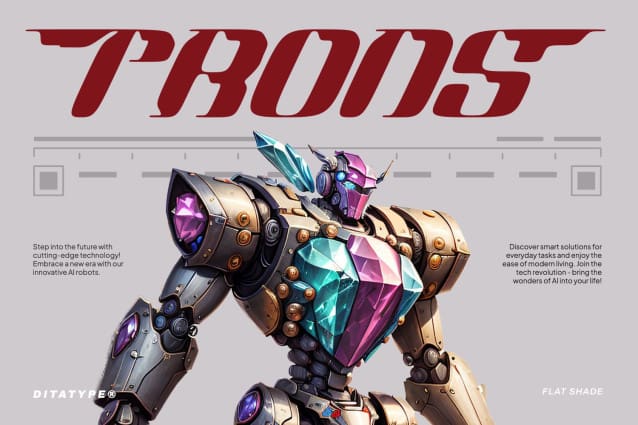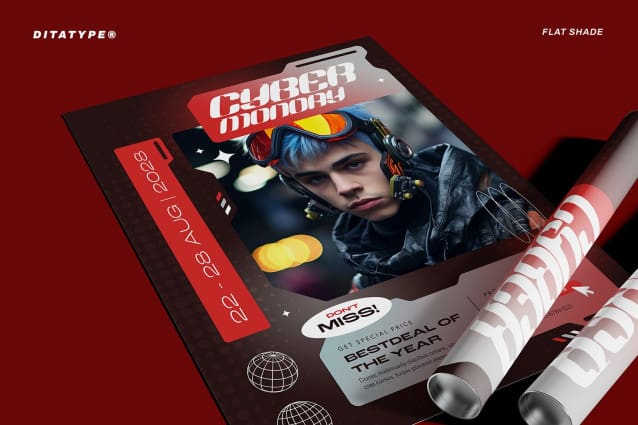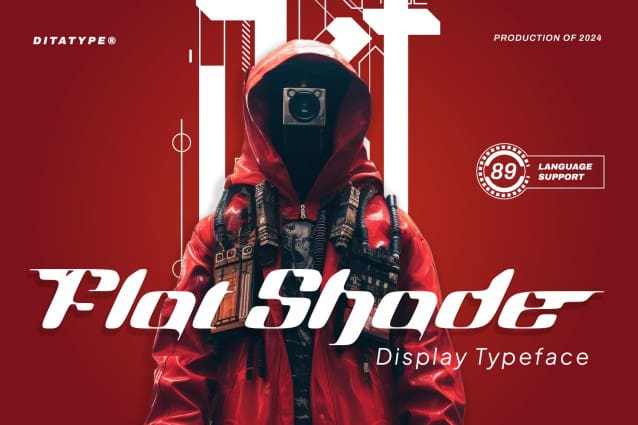
Flat Shade Font
Flat Shade Font is a captivating display font that commands attention with its bold presence and distinctive style. Each letter in FlatShade is meticulously designed to draw the eye and make an impact. What truly sets Flat Shade apart is its unique combination of visible contrast and an uneven outline, giving it a striking and memorable appearance.
The visible contrast between thick and thin strokes adds depth and dimension to the font, enhancing its visual appeal. Meanwhile, the uneven outline adds an element of unpredictability, creating an intriguing and dynamic texture that sets FlatShade apart from other display fonts. Despite its boldness and irregular outline, FlatShade maintains a sense of balance and harmony.